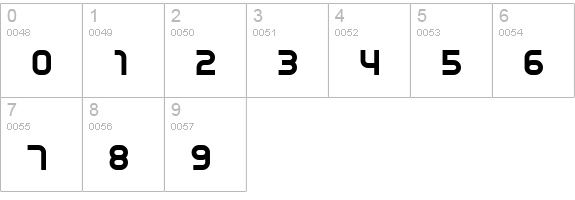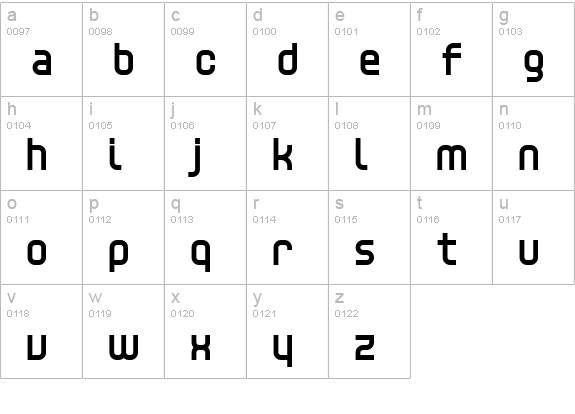
Unisect ExtraBold is an extra-heavy, attention-grabbing variant in the Unisect typeface family \xE2\x80\x94 well suited to high-impact headlines, posters, and bold branding.
Unisect ExtraBold is a visually striking font that exudes confidence and boldness. With its strong and powerful letterforms, this typeface makes a commanding statement in any design project. Its thick strokes and sharp edges give it a modern and edgy appeal, making it perfect for headlines, titles, and attention-grabbing text. What sets Unisect ExtraBold apart is not just its striking aesthetics, but also its availability as a free download. Yes, you read that right – this impressive font is freely available to download at FontsMarket.com. Now, designers and creatives can add a touch of strength and impact to their projects without having to worry about the cost. Unisect ExtraBold's versatility shines through in its ability to be used across various design applications. Whether it's for branding, advertising, posters, or website design, this font adds a dose of flair and individuality. Its bold presence demands attention and ensures that your message is conveyed with utmost clarity. The clean and well-defined letterforms of Unisect ExtraBold make it highly legible, even at smaller sizes. This means that your text will remain readable and impactful, regardless of whether it's on a large billboard or a tiny mobile screen. So go ahead and download Unisect ExtraBold for free from FontsMarket.com. Elevate your designs with this powerful and attention-grabbing typeface, and leave a lasting impression on your audience. With Unisect ExtraBold, your projects will stand out from the crowd, all while staying within your budget.